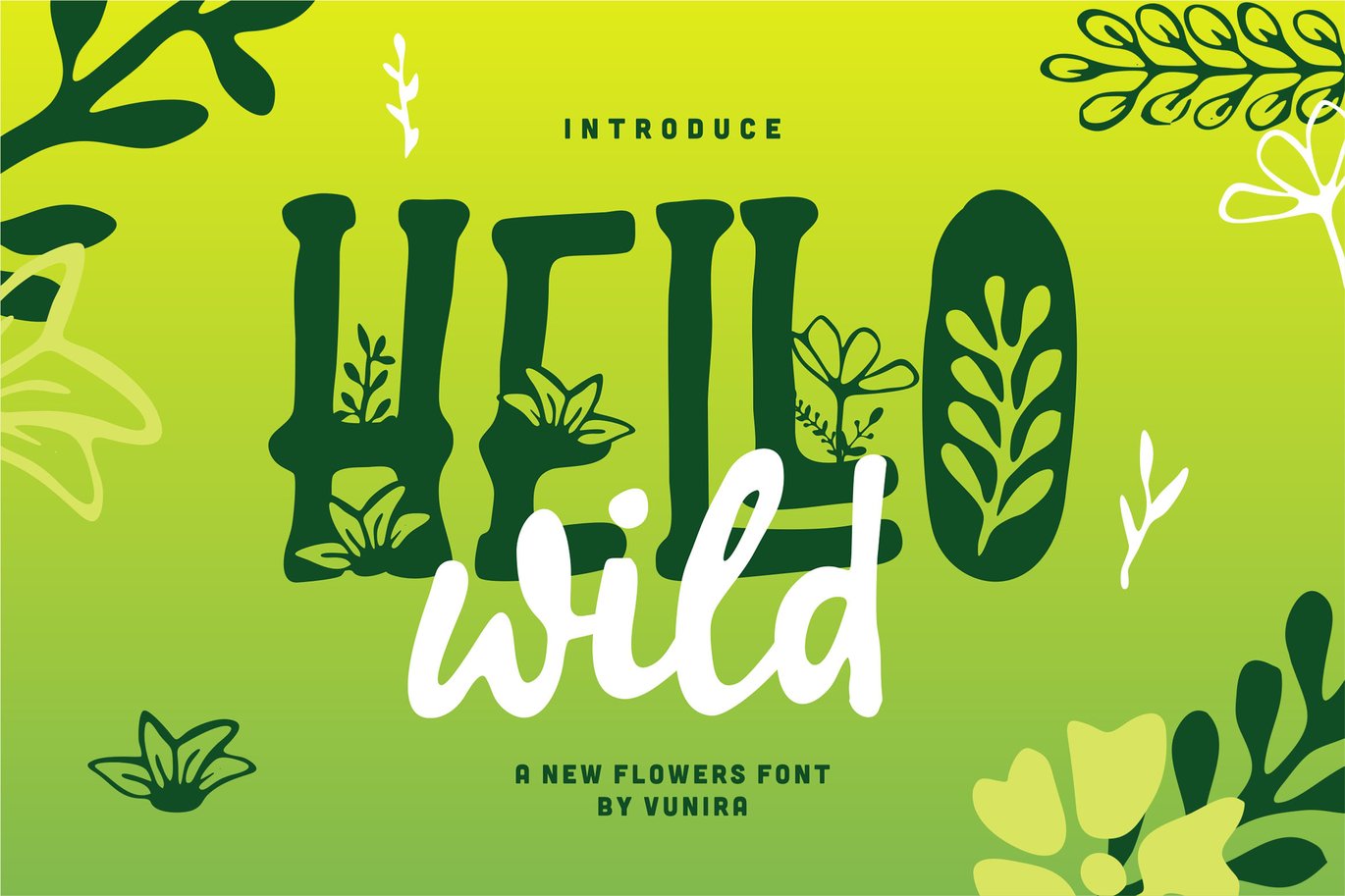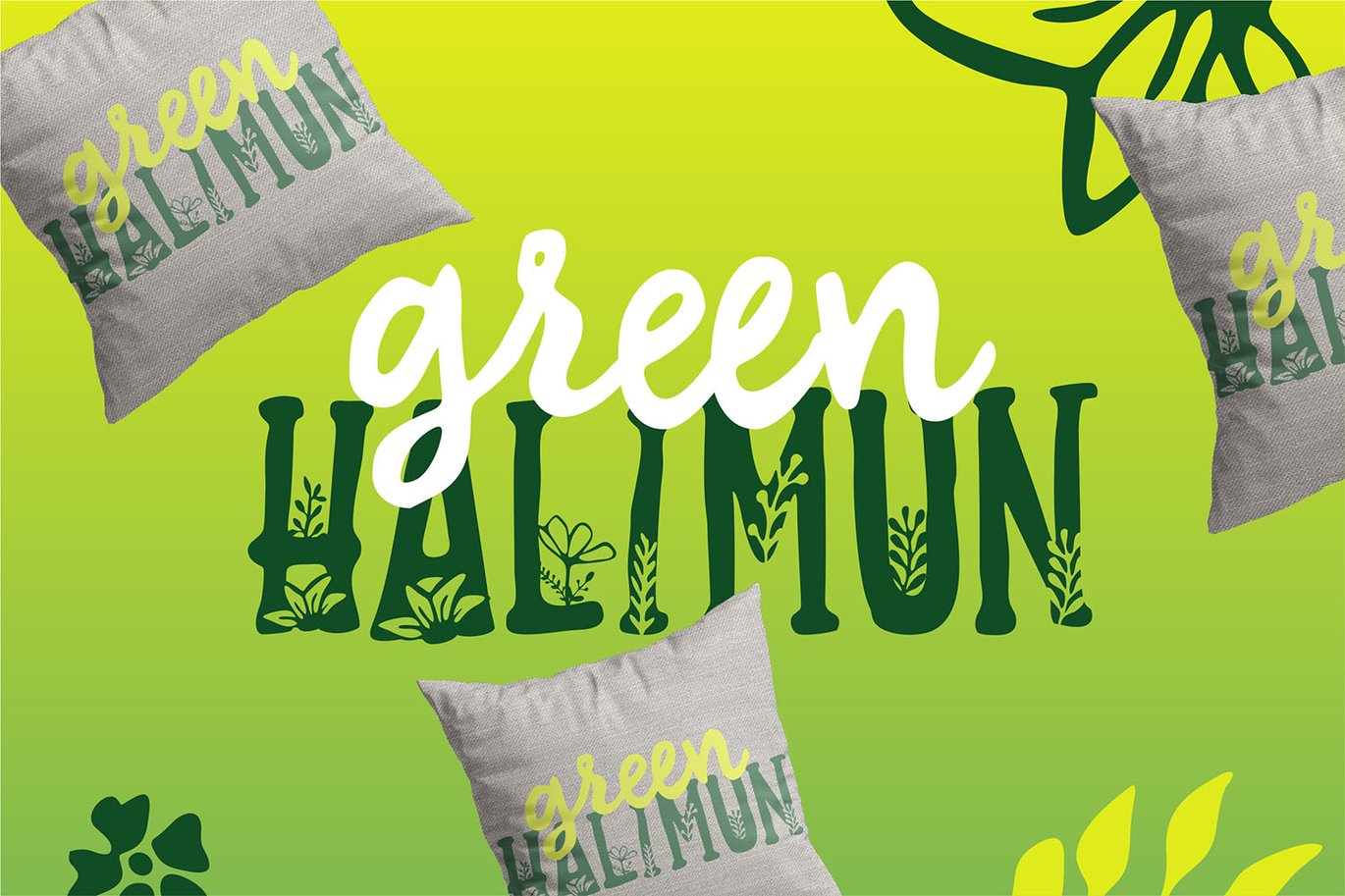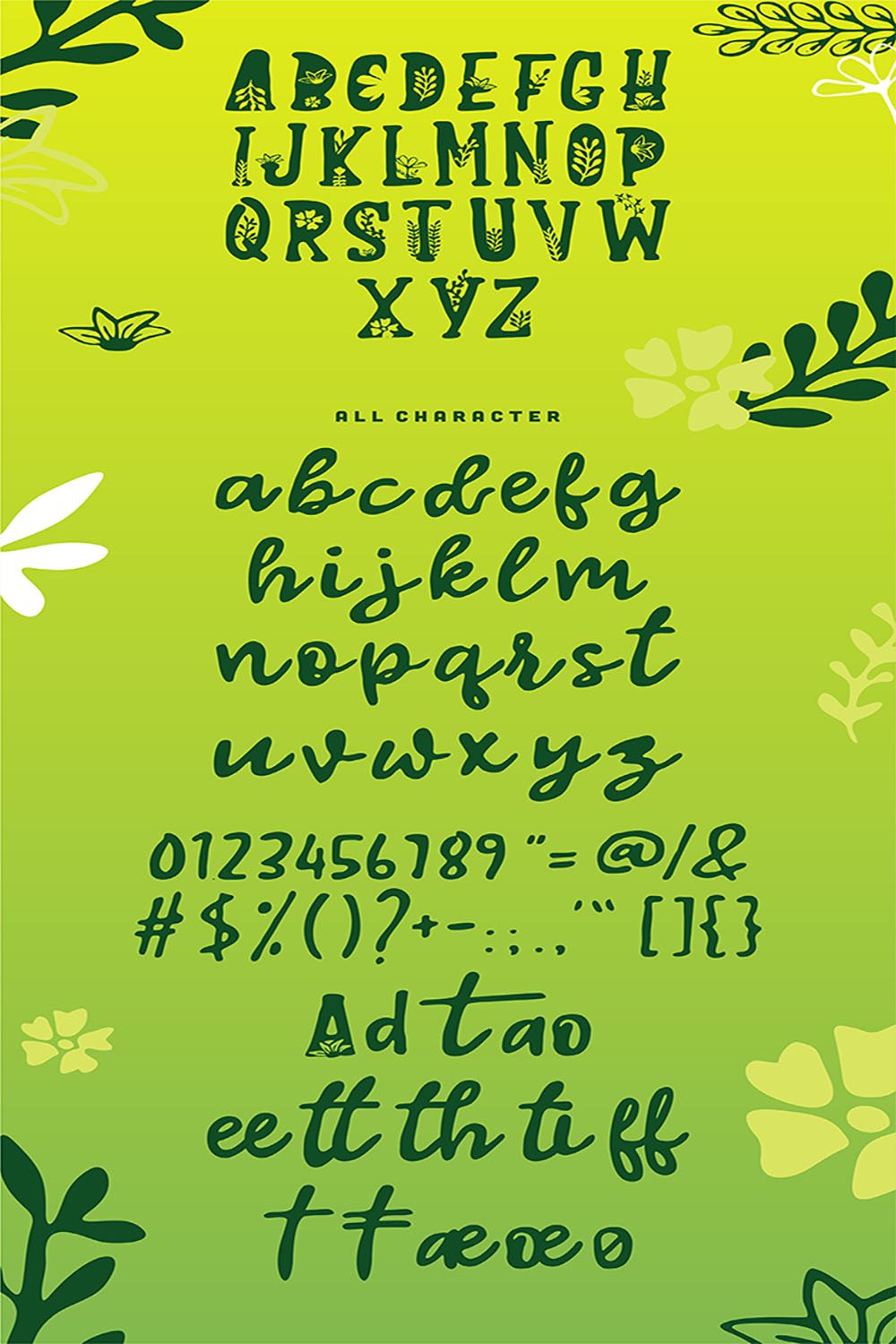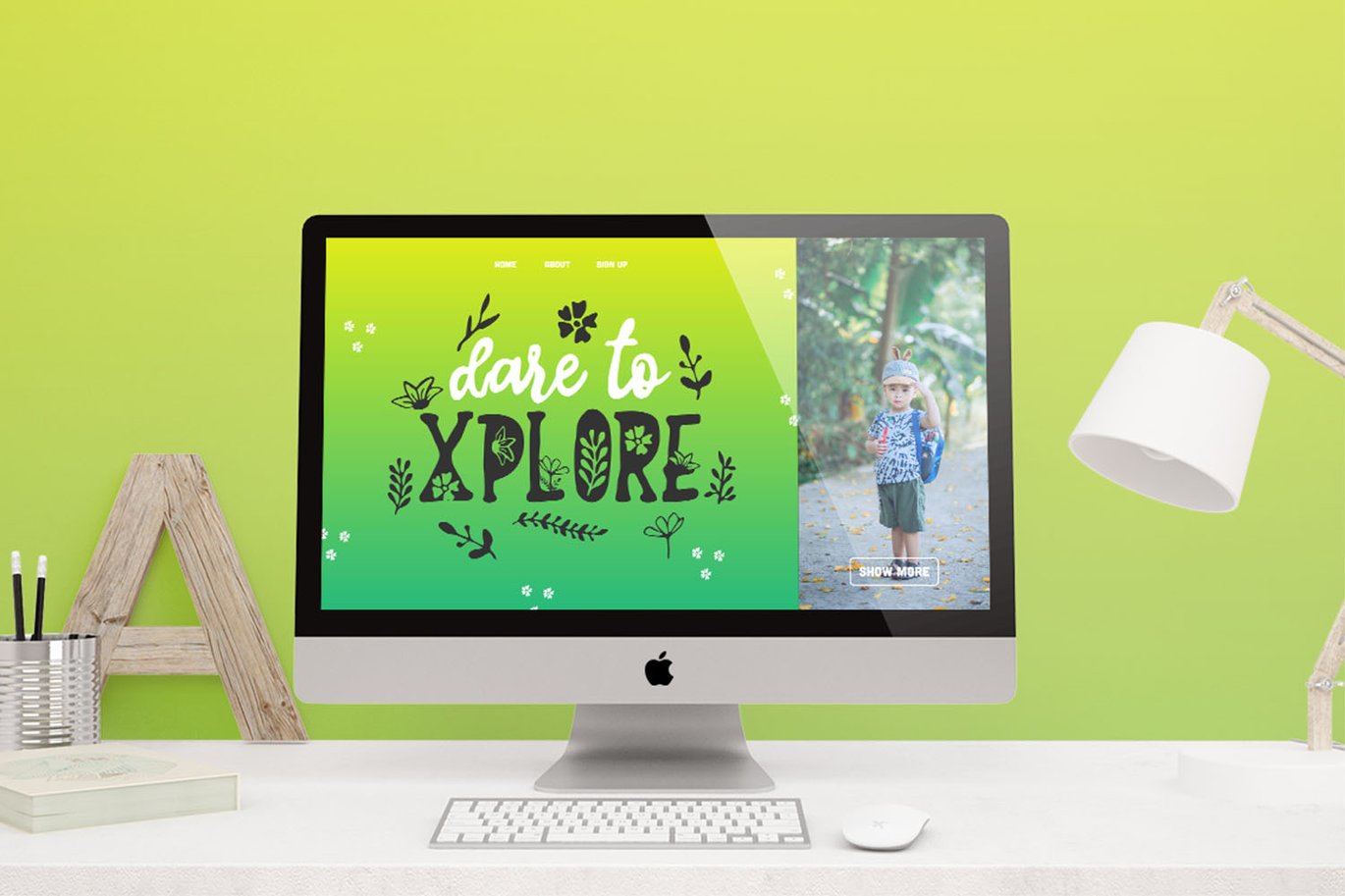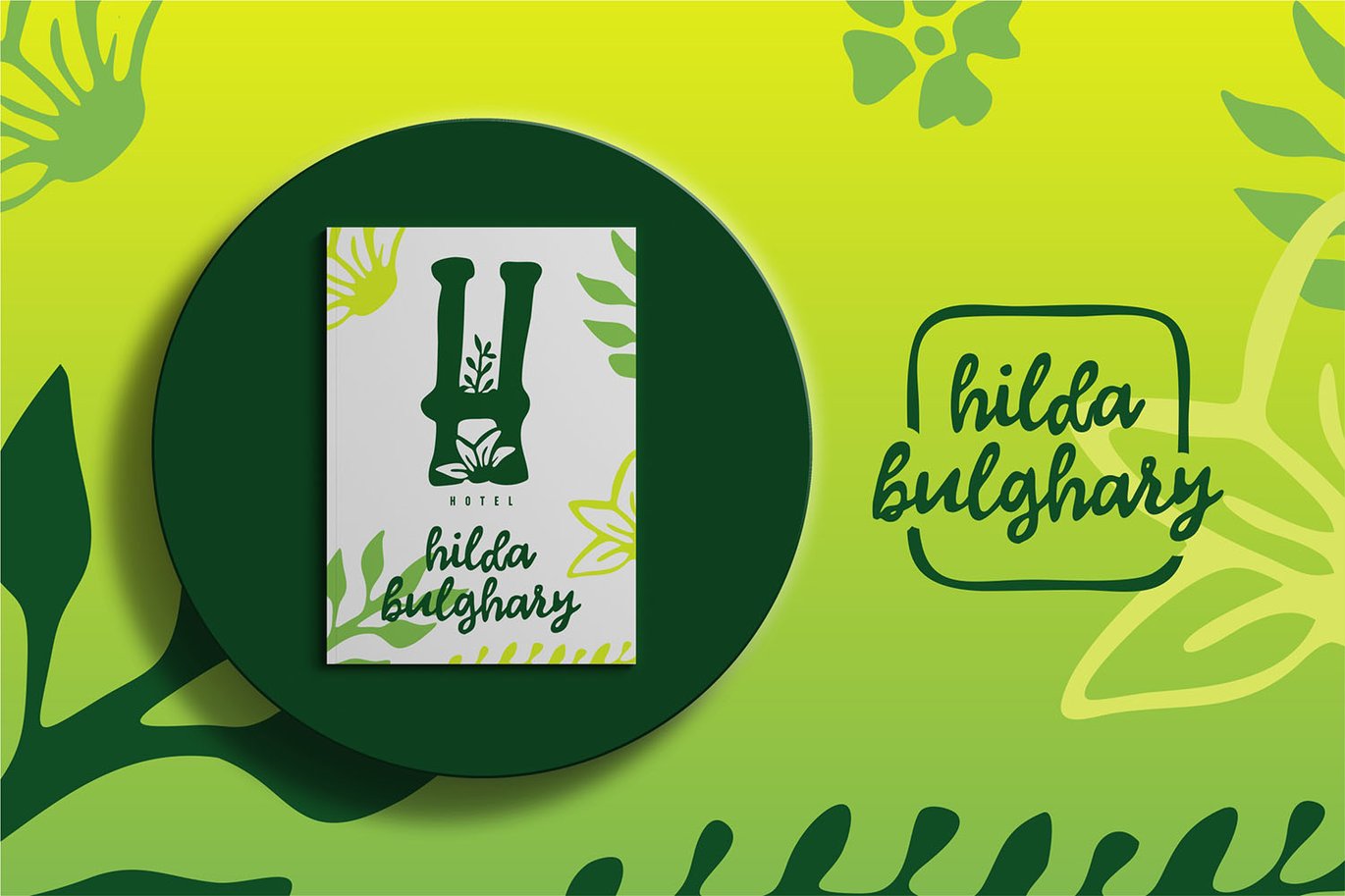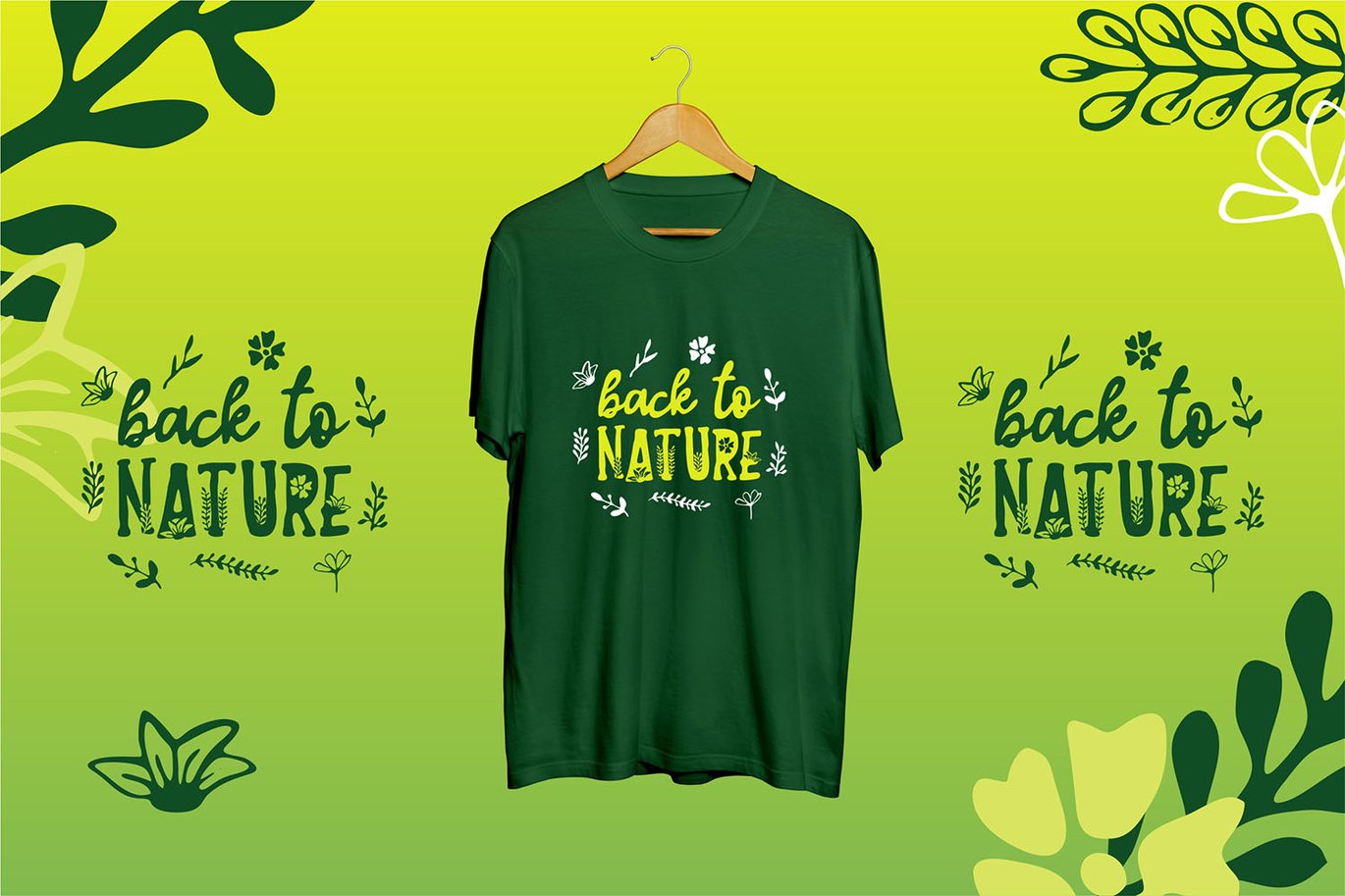
Hello wild | A New Flowers Font
Hello wild | A New Flowers Font with a calligraphy style, So beautiful on invitation like greeting cards, branding materials, business cards, quotes, posters, and more!